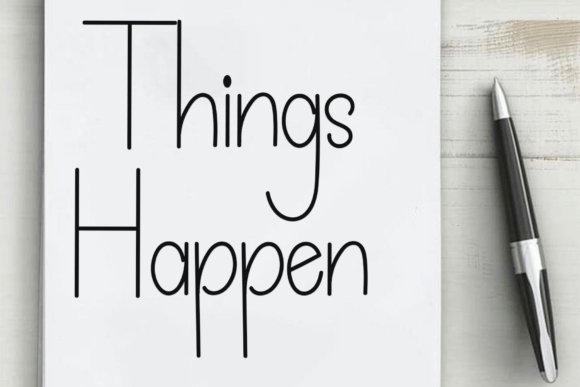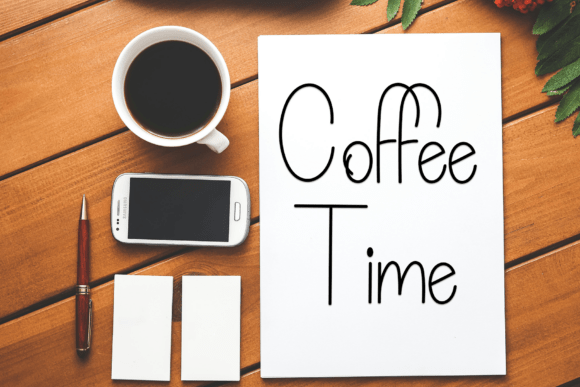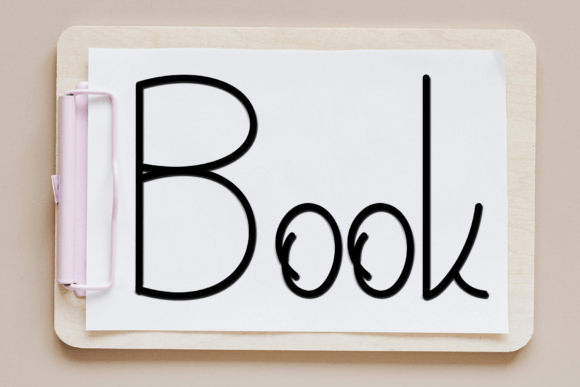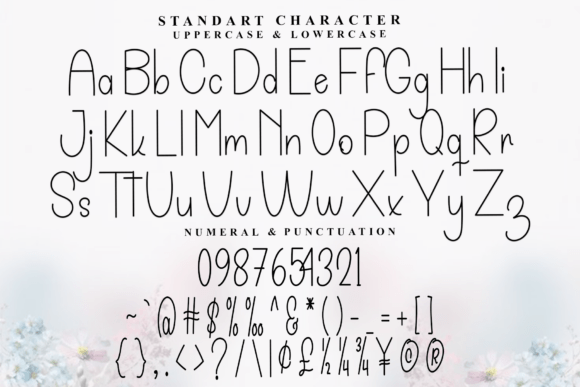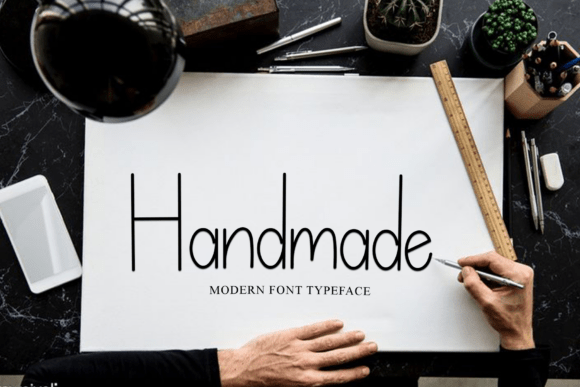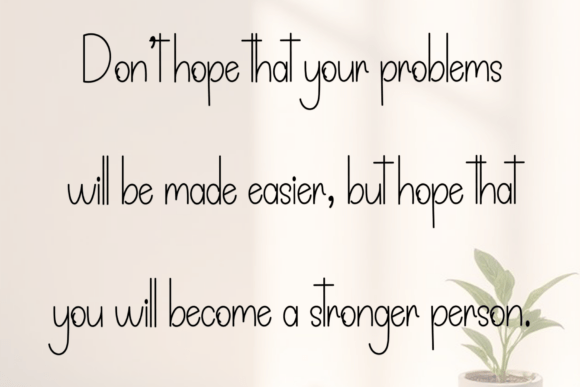
Introduction to Smile Christina Font
Smile Christina is a festive and merry typeface that captures the spirit of the holiday season.
Key Features of Smile Christina Font
Why Choose Smile Christina Font?